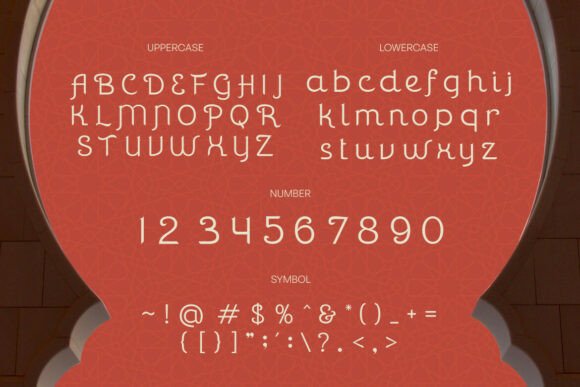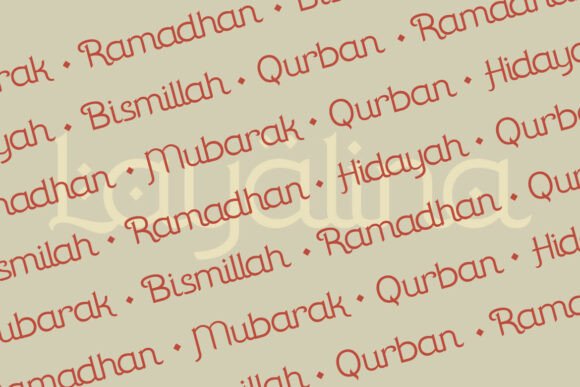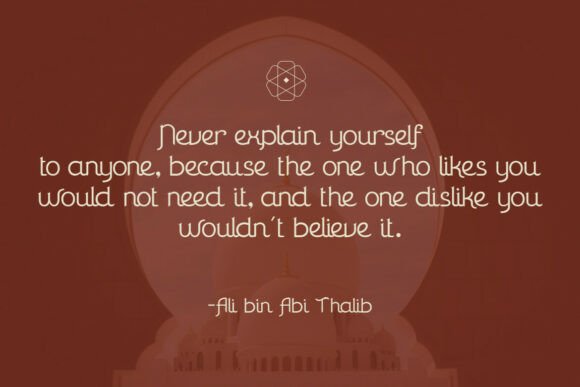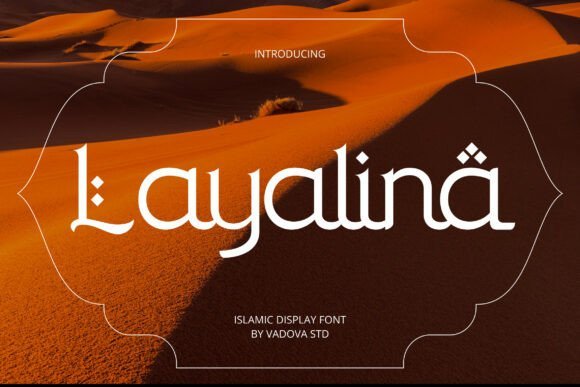
Introduction to Layalina Font
Transport your designs to a world of cultural elegance with Layalina, an Islamic display font that beautifully bridges traditional Arabic calligraphy with modern Latin typography.
This typeface features unique, geometric letterforms characterized by high-contrast strokes and distinctive diamond-shaped diacritics Its fluid yet structured silhouette captures the rhythmic grace of Middle Eastern artistry, making it an exceptional choice for Ramadan and Eid branding, luxury cultural event invitations, Middle Eastern restaurant logos, and spiritual editorial headers.
Key Features of Layalina Font
Why Choose Layalina Font?